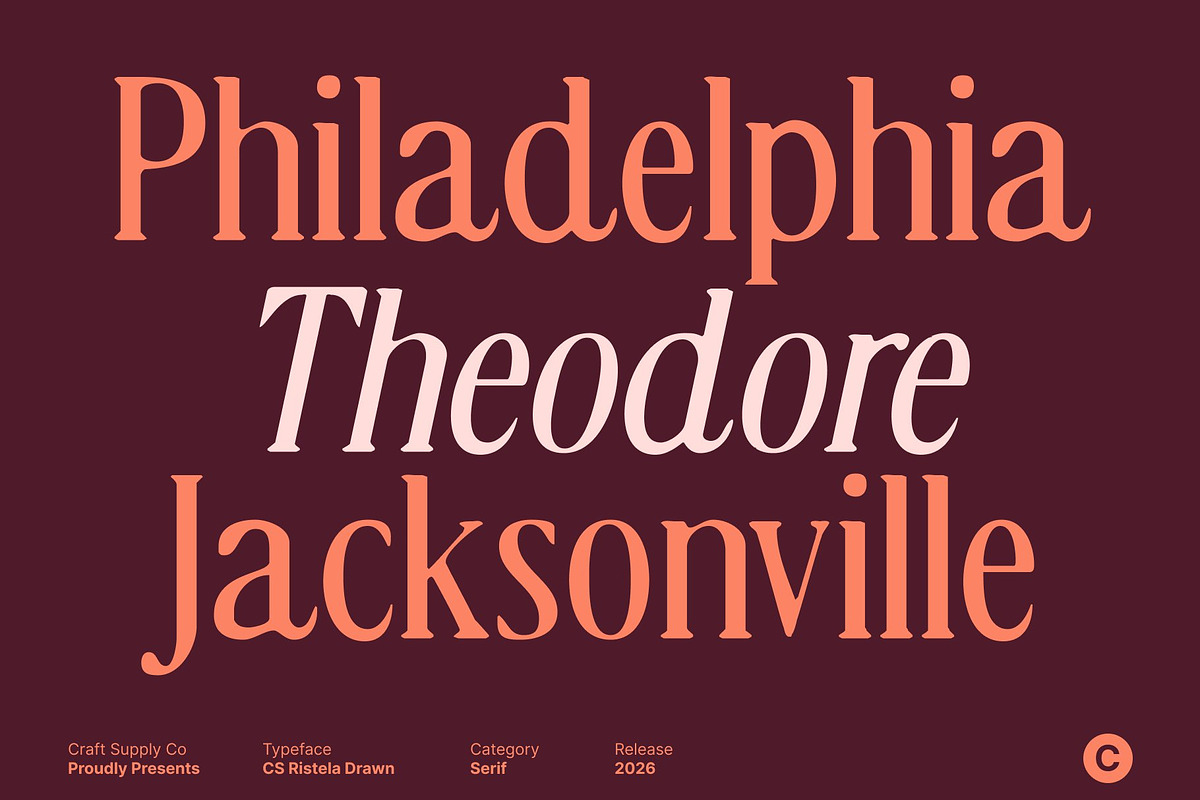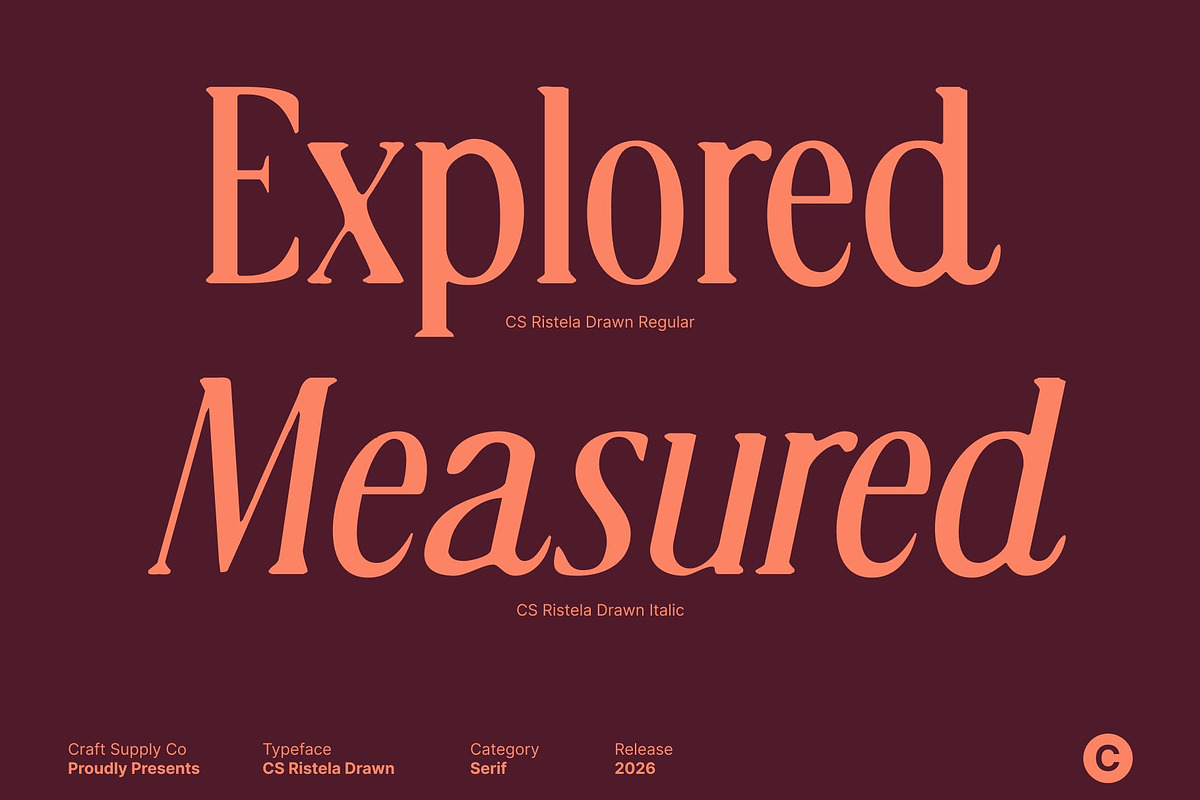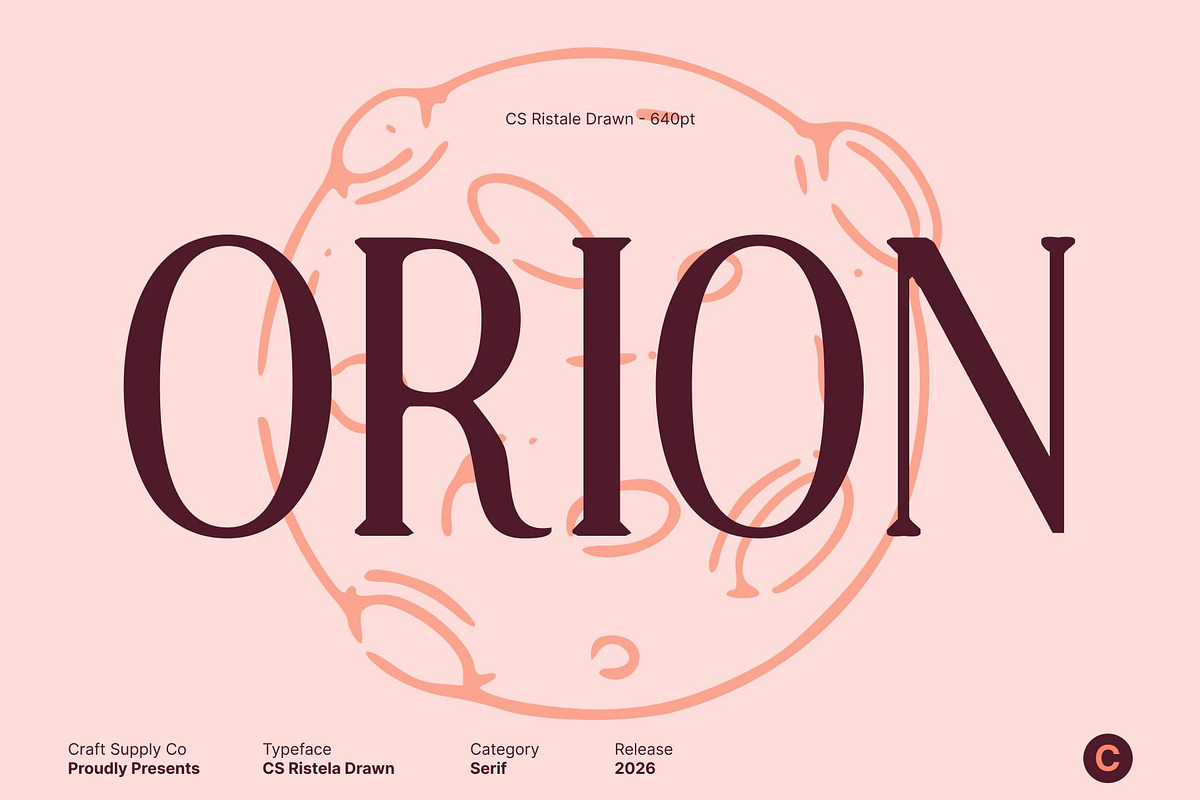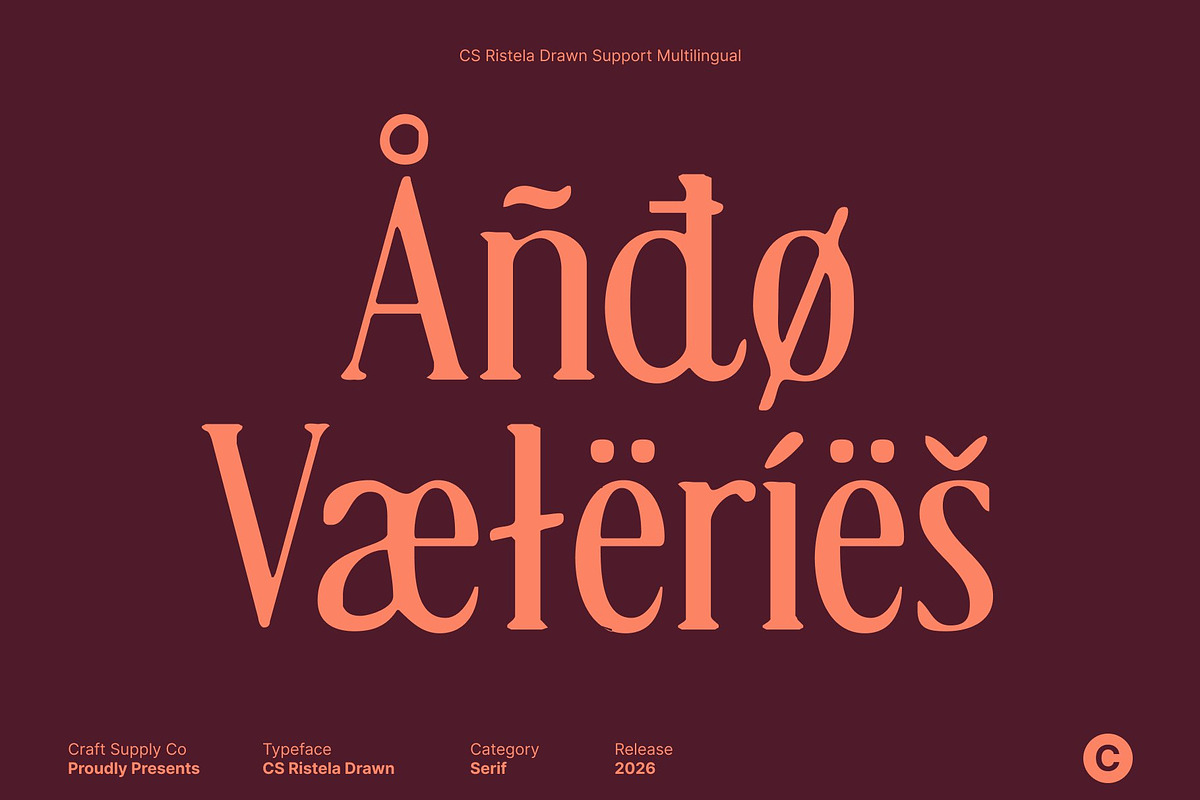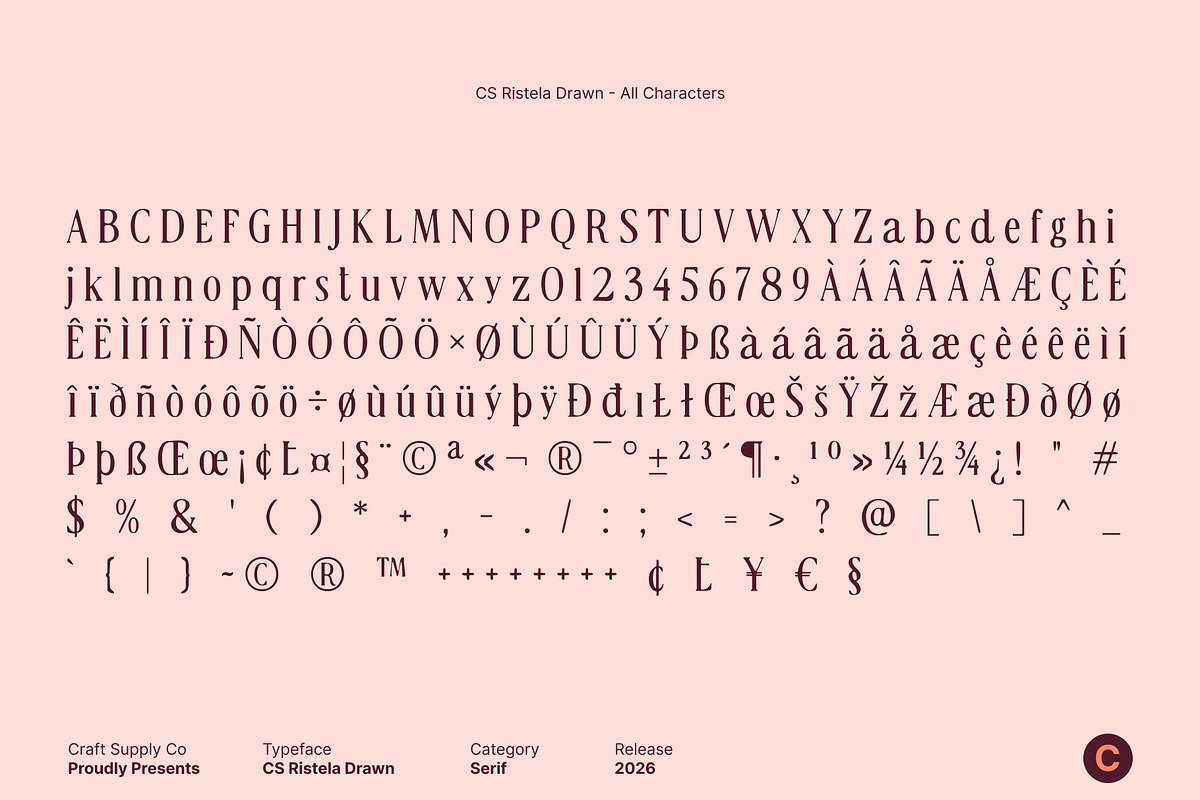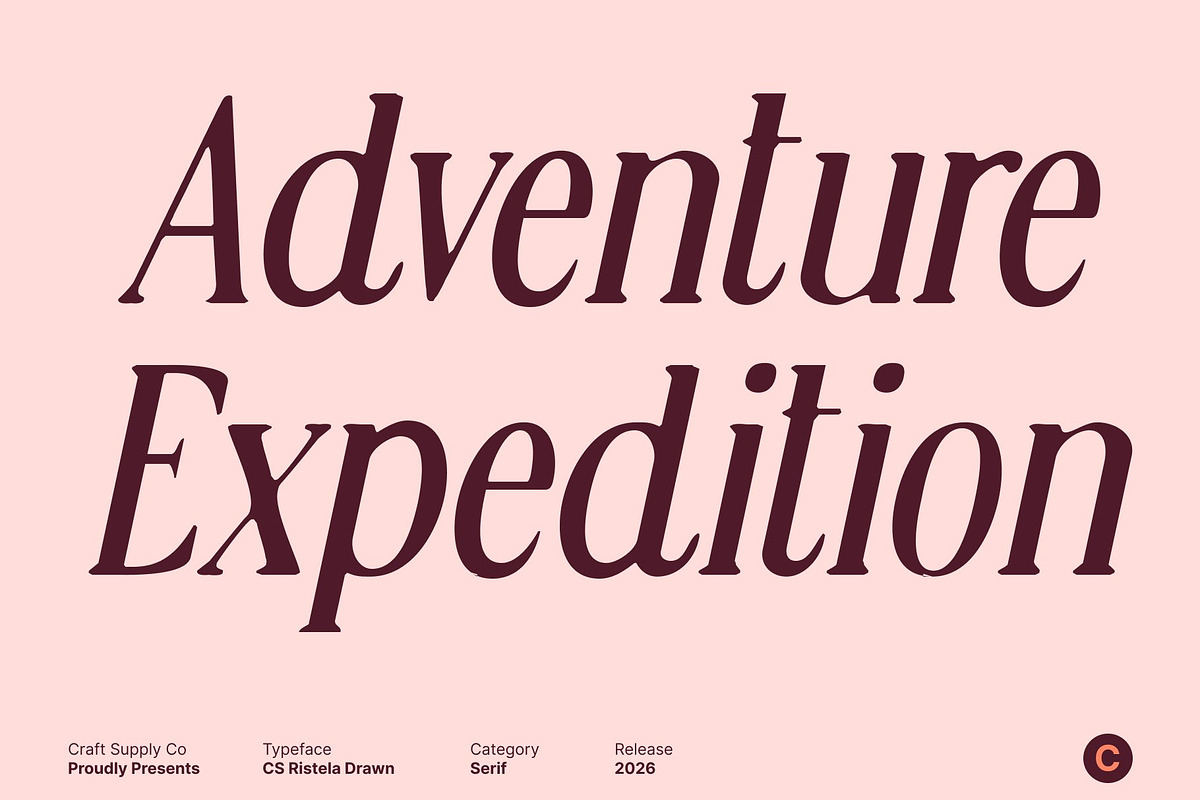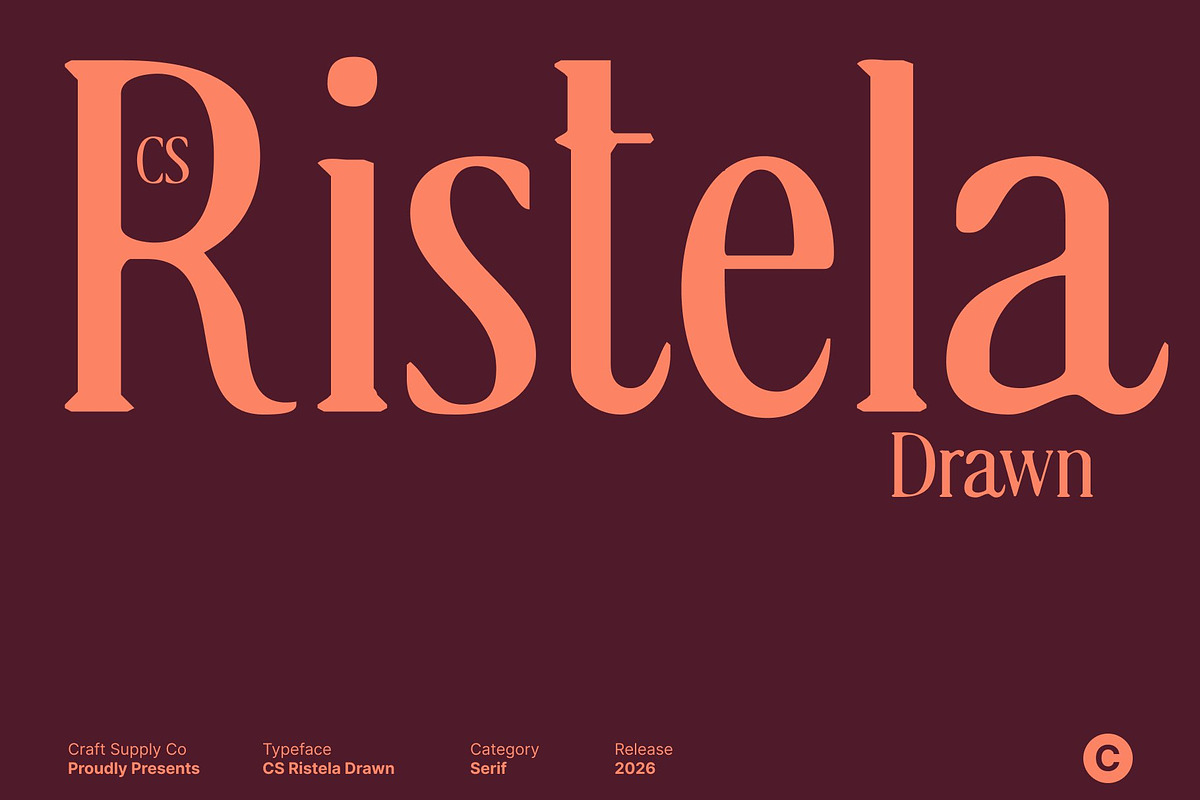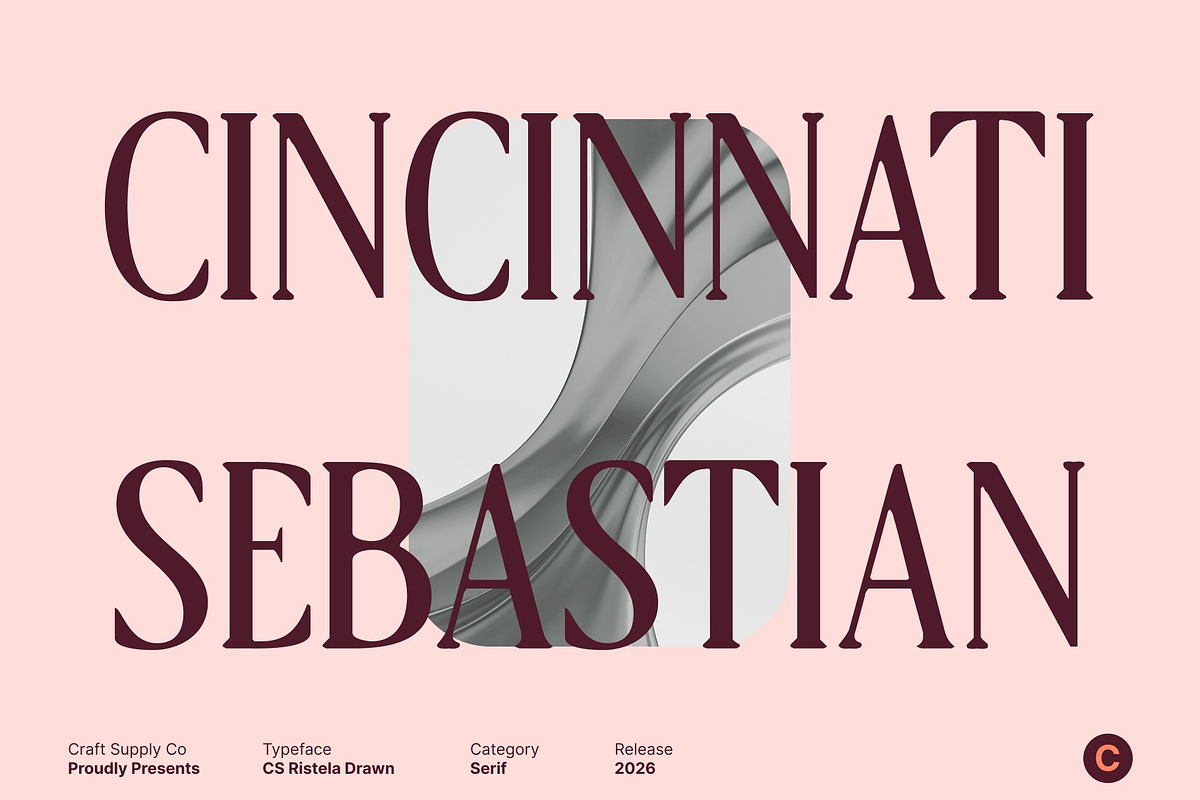
CS Ristela Drawn
CS Ristela Drawn – Timeless Elegance with Refined Proportions
Elegant Serif with Classic Inspiration This is an elegant serif font characterized by refined curves, slightly condensed proportions, and a delicate drawn texture. Inspired by Renaissance-era letterforms, it blends classical balance with modern precision, while the hand-drawn effect introduces a soft organic nuance that adds warmth without diminishing its sophistication.
Graceful Form with Handcrafted Refinement Its slender proportions and smooth curves evoke intelligence and poise, enhanced by subtle irregularities that give each letter a handcrafted character. This drawn finish brings life and authenticity to the typography, creating a refined yet approachable expression that feels natural across both print and digital media.
Ideal for Editorial and Branding Design Perfect for book layouts, editorial design, luxury packaging, and branding, this font delivers a polished and elevated tone. The classic serif structure ensures clarity and readability, while the drawn texture adds visual depth and distinction to headlines, titles, and refined compositions.
A Harmony of Tradition, Modernity, and Texture This font embodies the harmony between historical inspiration and contemporary design sensibility. With its elegant rhythm, refined proportions, and subtle drawn character, This is a versatile choice for designers seeking timeless beauty, high-end professionalism, and expressive typographic detail.